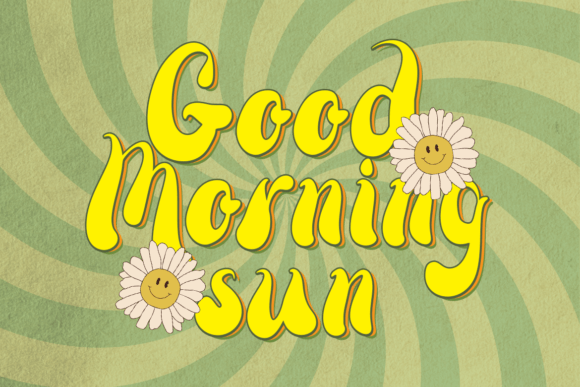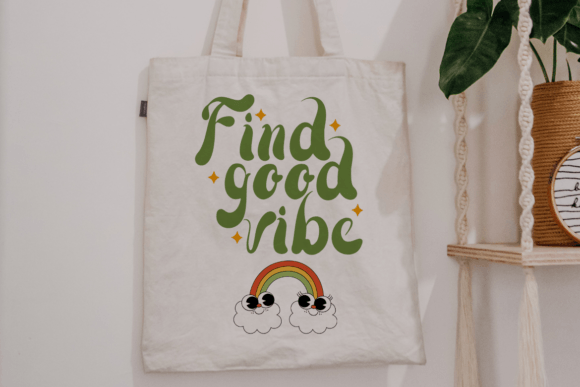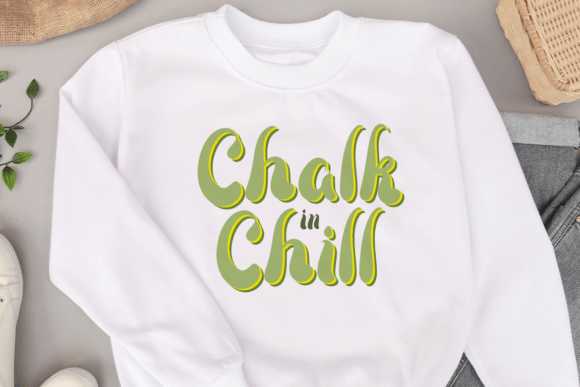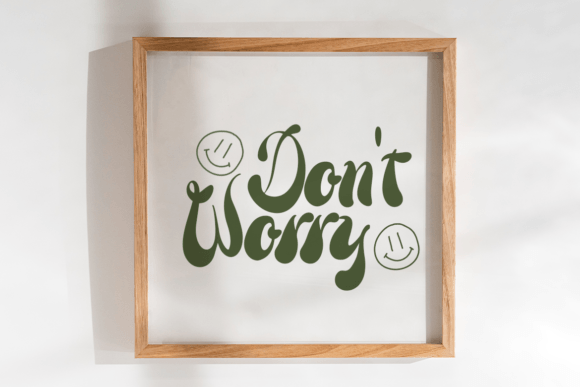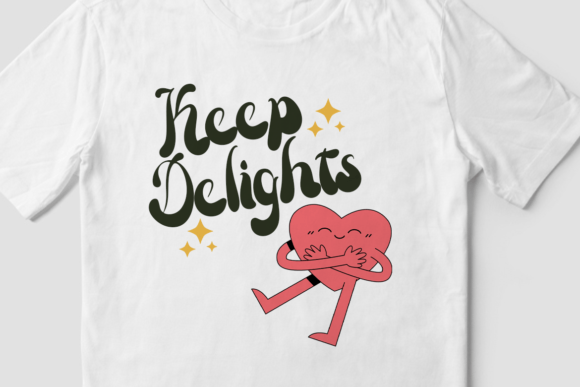
Dustin Groovy Font: Elevate Your Designs with a Retro Twist
Are you looking for a font that can add a touch of nostalgia and playfulness to your designs? Look no further than the Dustin Groovy Font! This stylish and versatile display font is perfect for designers and crafters who want to bring a retro vibe to their creative projects.
What is Dustin Groovy Font?
Dustin Groovy is a carefully crafted display font that exudes a sense of fun and sophistication. Its unique design elements and bold lines make it perfect for headlines, titles, and other display purposes. With its retro flair, this font can instantly elevate your designs and give them a distinctive look.
Key Features of Dustin Groovy Font
- Playful and Stylish: Dustin Groovy Font boasts a playful and stylish design that’s perfect for adding a touch of whimsy to your designs.
- Retro Touch: This font has a distinct retro vibe that’s reminiscent of classic designs from the 70s and 80s.
- Highly Versatile: Dustin Groovy Font can be used for a wide range of design projects, from posters and flyers to logos and branding materials.
- Easy to Read: Despite its playful design, this font is highly legible and easy to read, even at smaller sizes.
How to Use Dustin Groovy Font in Your Designs
Using Dustin Groovy Font in your designs is easy! Here are a few ideas to get you started:
- Posters and Flyers: Use Dustin Groovy Font as a headline font to grab attention and add a touch of retro flair to your posters and flyers.
- Logos and Branding: This font can be used to create unique and memorable logos that stand out from the crowd.
- Social Media Graphics: Add a touch of personality to your social media graphics with Dustin Groovy Font.
- Packaging Design: Use this font to add a playful touch to your packaging designs and make your products stand out.
Why Choose Dustin Groovy Font?
With so many fonts available, why choose Dustin Groovy Font? Here are a few reasons:
- Unique Design: Dustin Groovy Font has a unique design that’s sure to make your designs stand out.
- High-Quality: This font is carefully crafted to ensure high-quality and consistency.
Tips for Getting the Most Out of Dustin Groovy Font
Here are a few tips to help you get the most out of Dustin Groovy Font:
- Experiment with Colors: Dustin Groovy Font looks great in bold, bright colors. Experiment with different color combinations to find the one that works best for your design.
- Play with Size: This font looks great at large sizes, but it can also be used at smaller sizes for added versatility.
- Pair with Other Fonts: Dustin Groovy Font pairs well with other fonts. Experiment with different font combinations to find the one that works best for your design.
| Author | Masa Aska Sanurumi |
Dustin Groovy Font is a versatile and stylish display font that’s perfect for designers and crafters who want to add a retro touch to their designs. With its unique design elements, bold lines, and playful vibe, this font is sure to elevate your designs and make them stand out. Whether you’re creating posters, logos, or social media graphics, Dustin Groovy Font is a great choice.